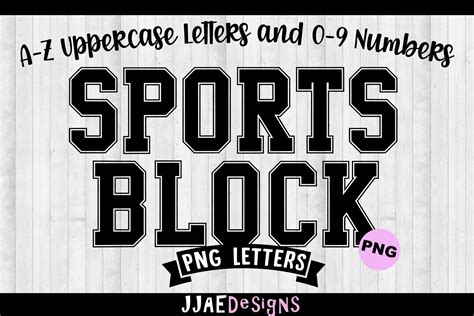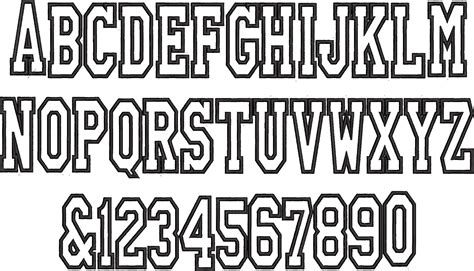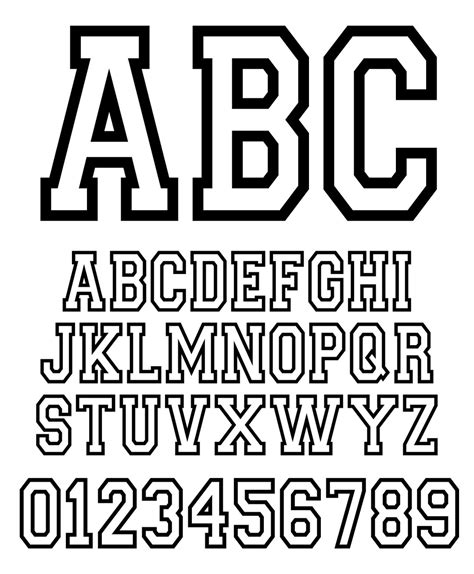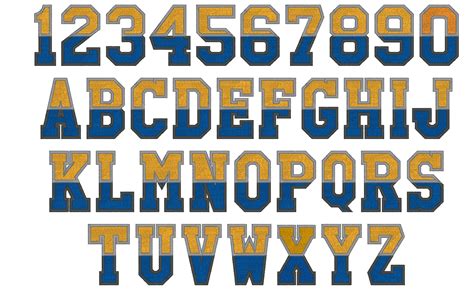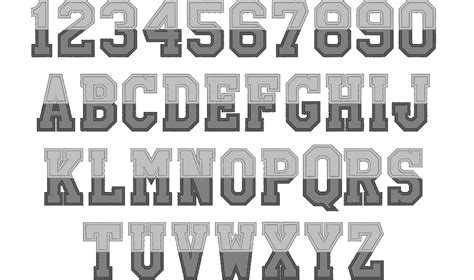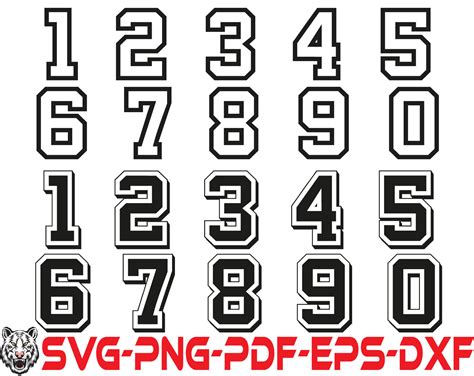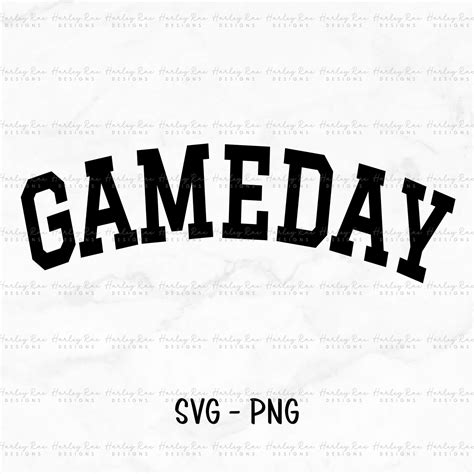
In the world of graphic design and typography, the choice of font can significantly impact the overall aesthetic and readability of a project. One font style that has gained considerable attention is the Athletic Block Font. This font is characterized by its bold, blocky letters, which evoke a sense of strength and power. It is often used in designs that aim to convey a sense of athleticism, robustness, and modernity. Whether you are designing a sports logo, a fitness brand, or any project that requires a strong visual impact, the Athletic Block Font can be an excellent choice.
Understanding the Athletic Block Font
The Athletic Block Font is more than just a stylistic choice; it is a design element that can communicate a specific message. The font's thick, blocky letters are designed to stand out, making it ideal for headlines, posters, and any other design where legibility and impact are crucial. The font's clean lines and geometric shapes give it a modern and sleek appearance, making it versatile for a wide range of applications.
Characteristics of the Athletic Block Font
The Athletic Block Font has several distinctive characteristics that set it apart from other fonts:
- Bold and Blocky Letters: The font's thick, blocky letters are its most defining feature. This design choice makes the font highly visible and impactful, even from a distance.
- Modern and Sleek Design: The clean lines and geometric shapes of the Athletic Block Font give it a contemporary and sophisticated look.
- High Legibility: Despite its bold design, the Athletic Block Font maintains high legibility, making it suitable for various design projects.
- Versatility: The font's modern and robust appearance makes it versatile for a wide range of applications, from sports logos to fitness branding.
Applications of the Athletic Block Font
The Athletic Block Font is highly versatile and can be used in various design projects. Some of the most common applications include:
- Sports Logos: The font's bold and blocky letters make it an excellent choice for sports logos, where a strong and impactful design is essential.
- Fitness Branding: The Athletic Block Font is often used in fitness branding to convey a sense of strength and athleticism.
- Posters and Flyers: The font's high visibility and legibility make it ideal for posters and flyers, where the message needs to be clear and impactful.
- Headlines and Titles: The Athletic Block Font is perfect for headlines and titles in magazines, websites, and other publications where a strong visual impact is desired.
Designing with the Athletic Block Font
When designing with the Athletic Block Font, there are several tips and best practices to keep in mind to ensure the best results:
- Use it Sparingly: The Athletic Block Font is highly impactful, so it is best used sparingly. Overusing the font can make your design look cluttered and overwhelming.
- Pair it with Complementary Fonts: To create a balanced design, pair the Athletic Block Font with complementary fonts that have a different style but complement its boldness.
- Consider Color and Contrast: The Athletic Block Font's bold design means it can stand out against various backgrounds. Experiment with different colors and contrasts to find the best combination for your design.
- Maintain Legibility: While the Athletic Block Font is highly legible, it is essential to ensure that the text remains readable, especially in smaller sizes.
💡 Note: When using the Athletic Block Font in digital designs, ensure that the font size is large enough to maintain legibility on different screen sizes and resolutions.
Examples of the Athletic Block Font in Use
To better understand the versatility and impact of the Athletic Block Font, let's look at some examples of how it has been used in various design projects:
| Application | Description | Example |
| Sports Logo | A bold and impactful sports logo for a local basketball team. | |
| Fitness Branding | A modern and sleek fitness branding campaign for a gym. | |
| Poster Design | A high-impact poster for a fitness event. | |
| Headline Design | A strong and impactful headline for a sports magazine. |
Tips for Effective Use of the Athletic Block Font
To make the most of the Athletic Block Font in your designs, consider the following tips:
- Use it for Headlines and Titles: The Athletic Block Font is perfect for headlines and titles where a strong visual impact is desired.
- Combine with Other Fonts: Pair the Athletic Block Font with complementary fonts to create a balanced and harmonious design.
- Experiment with Colors: The Athletic Block Font's bold design means it can stand out against various backgrounds. Experiment with different colors and contrasts to find the best combination for your design.
- Maintain Legibility: Ensure that the text remains readable, especially in smaller sizes.
💡 Note: When using the Athletic Block Font in print designs, ensure that the font size is large enough to maintain legibility, especially when printed in smaller formats.